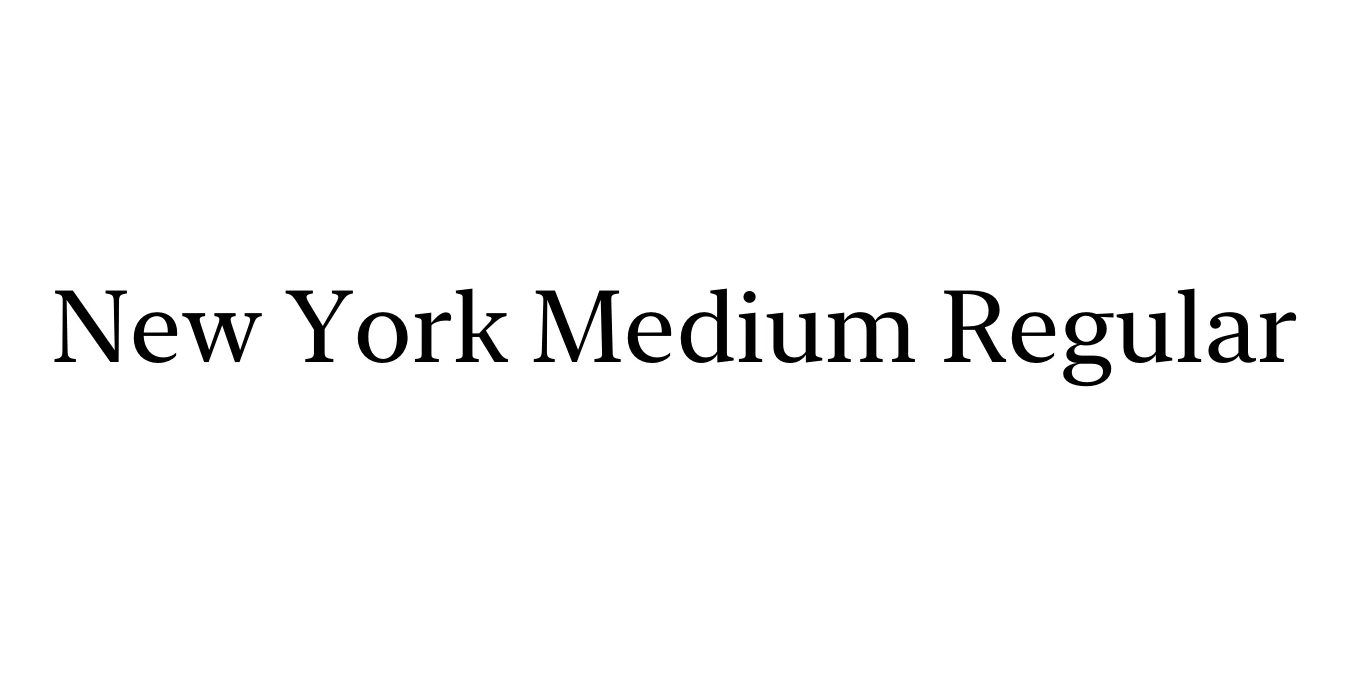
New York Medium Regular
Designed by Apple Inc.
New York Medium Regular is a contemporary transitional serif typeface designed by Apple Inc. and released in 2019. It was created to act as a sophisticated companion to Apple's sans-serif system font, San Francisco, providing a classical aesthetic balance within high-resolution digital environments. While it pays homage to the original 1983 New York font designed by Susan Kare, this modern version is a complete reimagining tailored for optimal legibility on Retina displays.
The typeface features a high-contrast design with vertical stress and refined serifs, making it an excellent choice for long-form digital reading. One of its standout features is its optical sizing, which automatically adjusts letterforms to ensure clarity at small sizes and elegance at display sizes. As the default serif font for Apple's ecosystem, it has set a new standard for modern digital typography, blending traditional craftsmanship with cutting-edge technology.
New York Medium Regular Best Uses
Optimized for high-density screens to reduce eye strain during long-form reading.
Perfect for digital magazines and blogs seeking a premium, sophisticated look.
Ideal for system hierarchies where a classical contrast to sans-serif is needed.
Excellent for luxury or professional brands that want to convey authority and elegance.